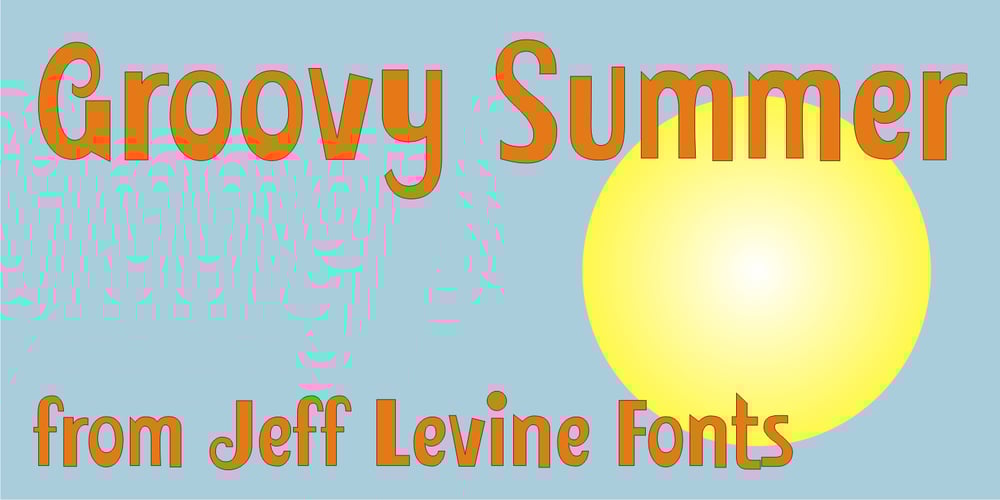
Groovy Summer JNL
Groovy Summer JNL Font Family was designed by Jeff Levine and published by Jeff Levine. Groovy Summer JNL contains 1 styles and family package options. Peace, love, togetherness and a fun font from Jeff Levine called Groovy Summer JNL harkens back to the long summer days of the 60’s or 70’s when life was just a little bit slower and happier…